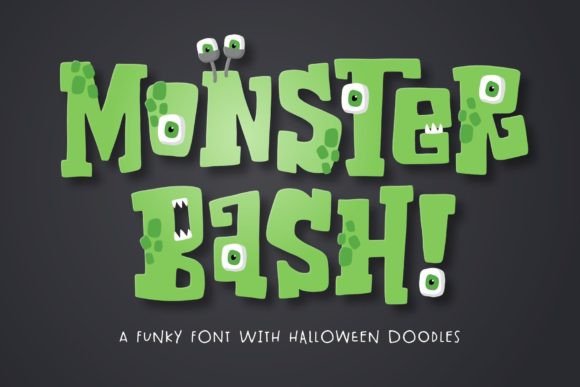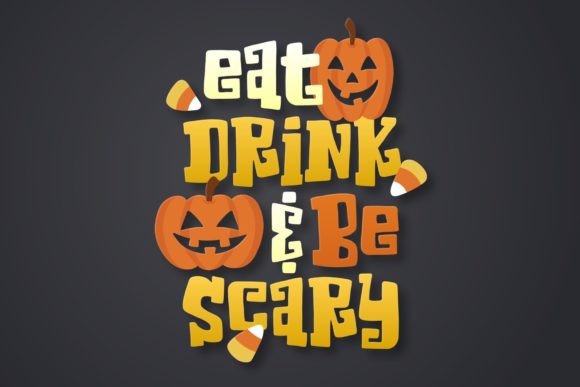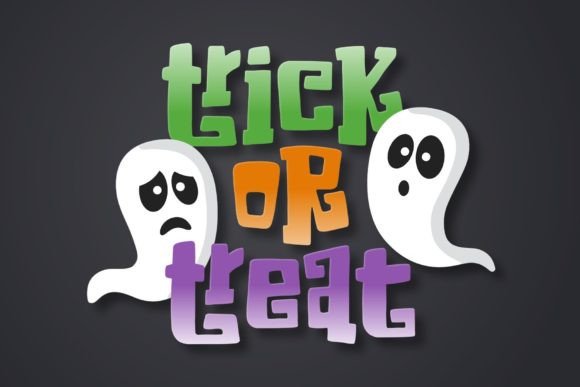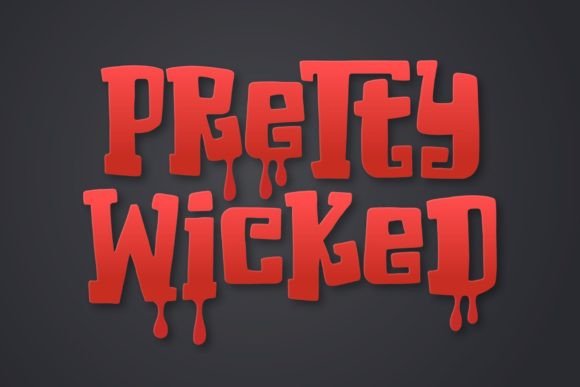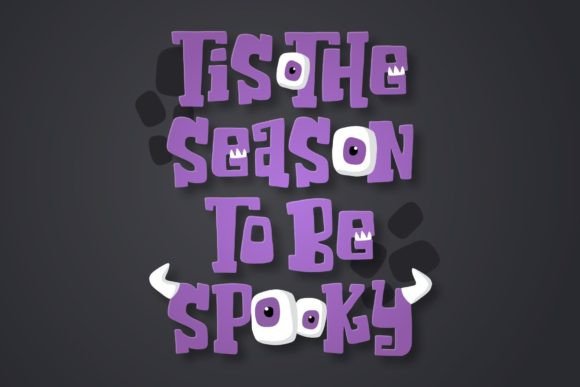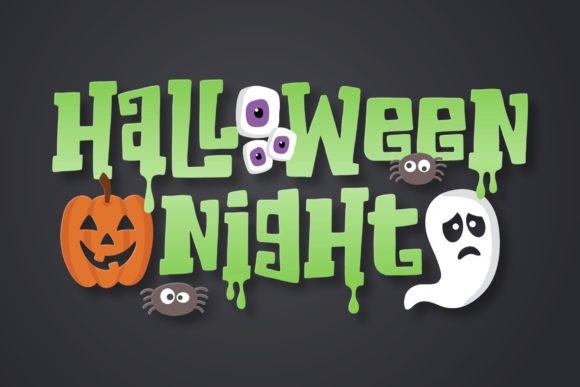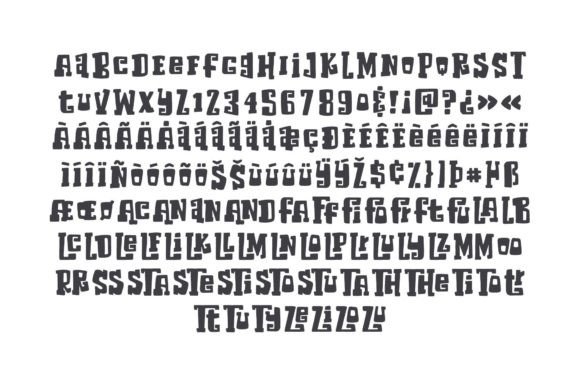
Monster Bash
Monster Bash: A Bold and Blocky Halloween-Themed Slab Serif Font
Monster Bash is a bold and blocky slab serif font that comes with a bunch of cute Halloween doodles. In programs that support Open Type features, Monster Bash will automatically create interlocking characters, adding a unique and playful dimension to your designs.
Key Features of Monster Bash
• Bold Design: Offers a strong and impactful look suitable for Halloween-themed applications.
• Slab Serif Structure: Features distinctive blocky serifs that add character and style.
• Interlocking Characters: Automatically creates interlocking letters in OpenType-supported programs.
• Halloween Doodles: Includes a set of cute Halloween-themed illustrations.
Ideal Uses for Monster Bash
Monster Bash’s unique characteristics make it particularly well-suited for:
When incorporating Monster Bash into your designs, consider these tips:
• Use for headlines or short blocks of text to showcase its bold style and interlocking features.
• Experiment with different sizes to highlight the font’s blocky characteristics.
• Utilize the included Halloween doodles to enhance the spooky theme of your designs.
Monster Bash is an excellent choice for designers looking to add a fun and spooky slab serif font to their Halloween-themed projects. Its ability to create interlocking characters and its inclusion of cute Halloween doodles make it stand out in the world of themed typography. Whether you’re working on party invitations, creating product packaging, or developing content for Halloween events, Monster Bash offers the perfect blend of boldness and playfulness.
Furthermore, Monster Bash’s unique design allows it to shine in various Halloween-related contexts. From children’s book covers to haunted house signage, this font can elevate your projects with its distinctive style. Its bold yet playful appearance works particularly well in designs that aim to evoke a sense of fun and spookiness.
In conclusion, Monster Bash is a font that truly captures the essence of Halloween spirit in typography. Its versatility across different Halloween-themed applications showcases its adaptability to various creative needs. For those looking to add a touch of spooky charm to their work, Monster Bash can enhance themed creations with its distinctive style and included doodles. It’s the perfect choice for designers seeking to make a bold, Halloween-inspired impact across a wide range of creative projects.